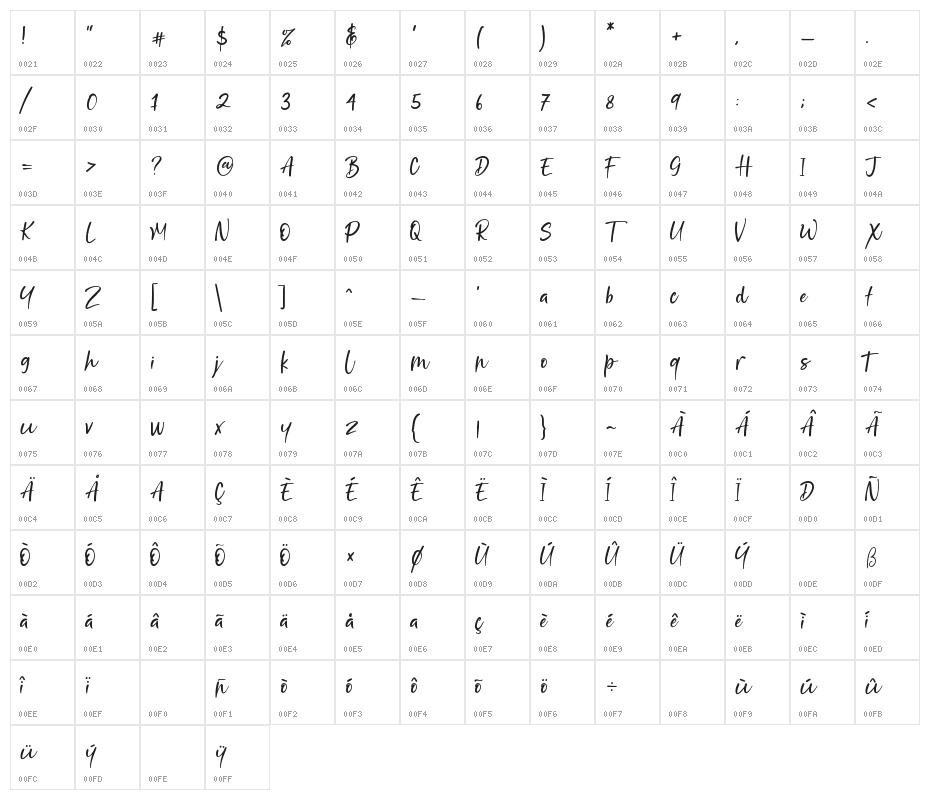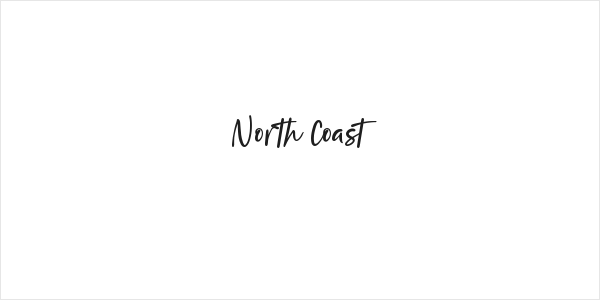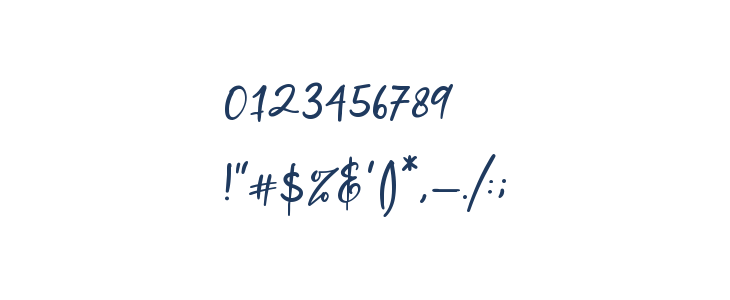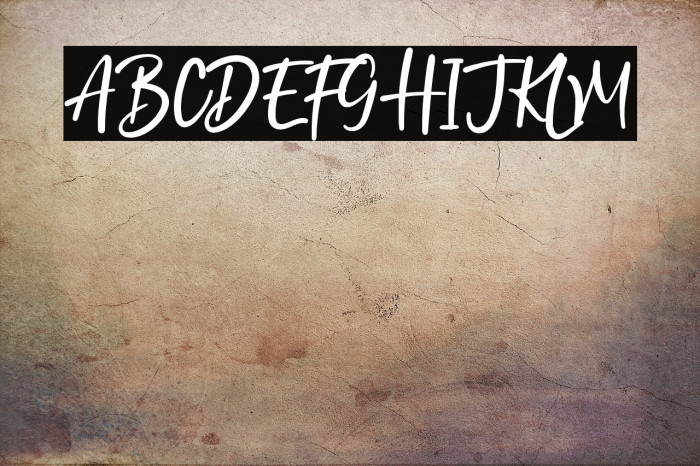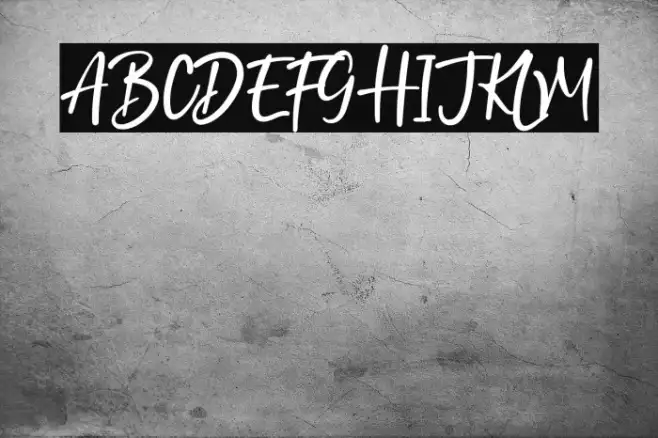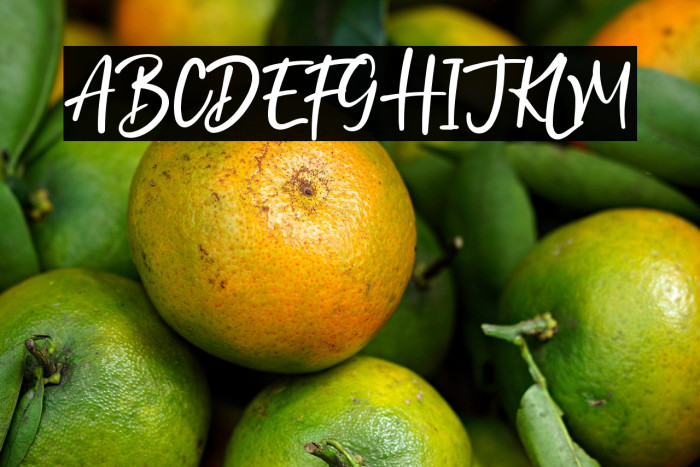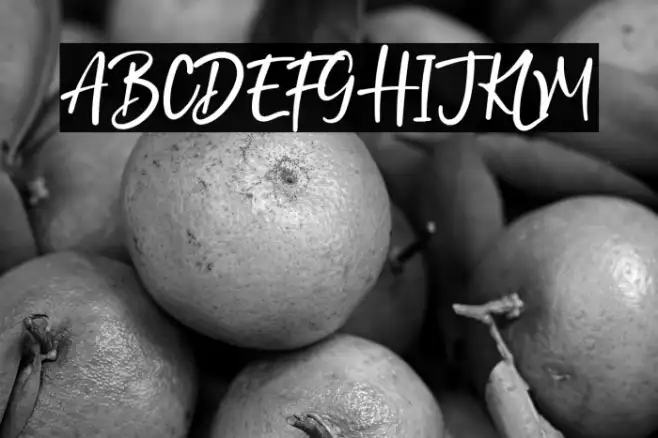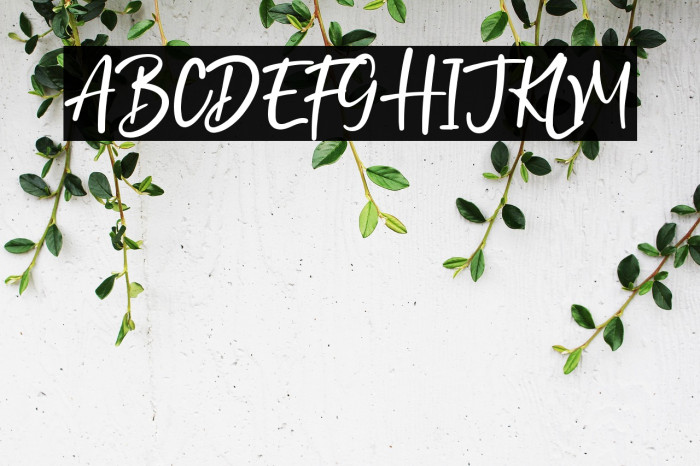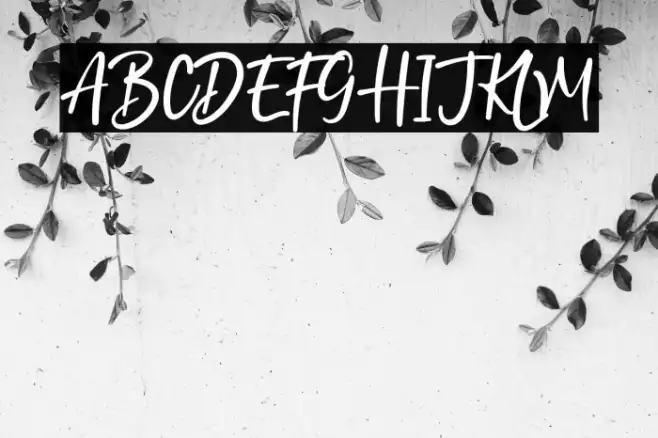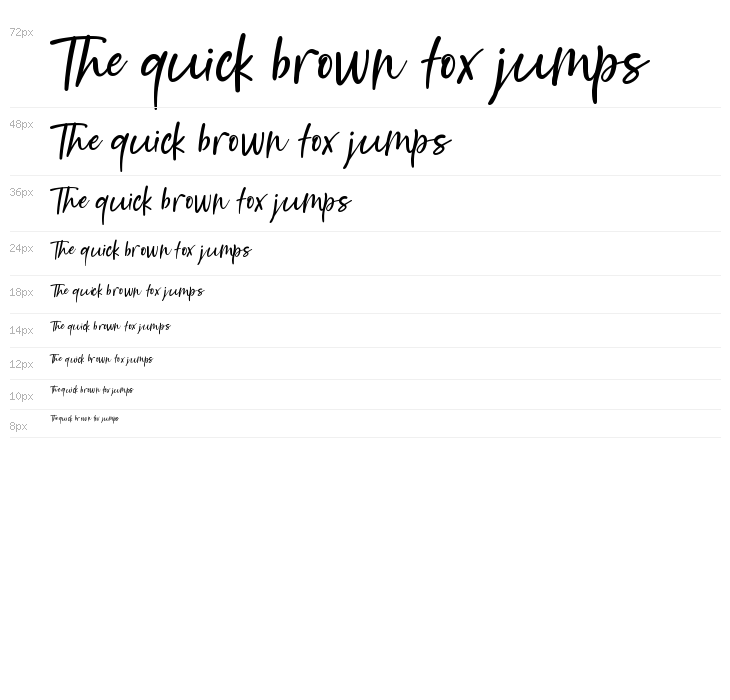
North Coast Font
North Coast Description
This font exudes a casual and artistic flair, characterized by its fluid, handwritten style. The letters are slightly slanted, giving a dynamic and lively appearance. The strokes vary in thickness, adding a natural and spontaneous feel. Uppercase letters are bold and prominent, while lowercase letters maintain a consistent flow. The numerals and special characters complement the overall aesthetic, making it versatile for creative projects. The font's playful yet elegant design makes it suitable for a variety of uses, from personal invitations to branding materials.
| Overall Style | Casual, Artistic |
| Proposed Projects | Ideal for invitations, greeting cards, branding, and creative projects requiring a personal touch. |